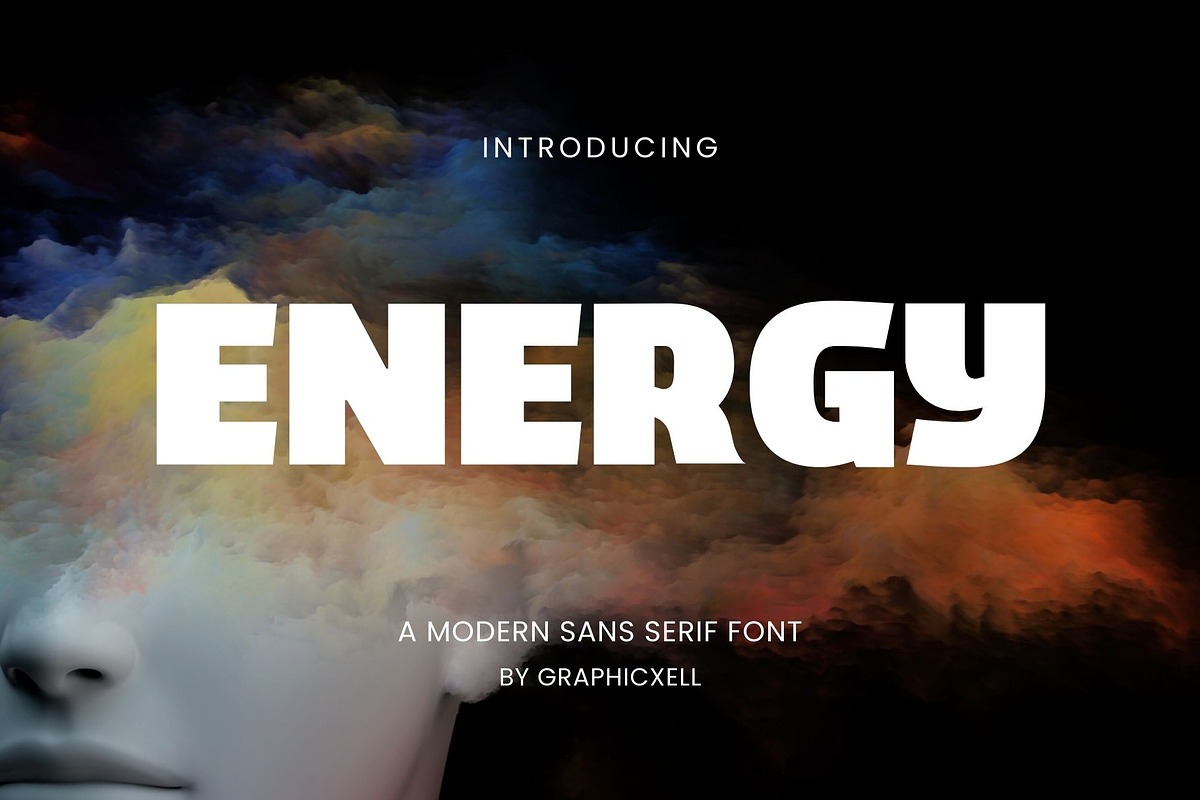
Energy Font
Energy Font is a clean and thoughtfully built typeface that works seamlessly for both professional branding and everyday creative uses. inspired by the famous minimalist logo perfect for the purposes of designing templates, brochures, videos, advertising branding, logos, invitation, layout design, elegant crafting, beauty design and more.